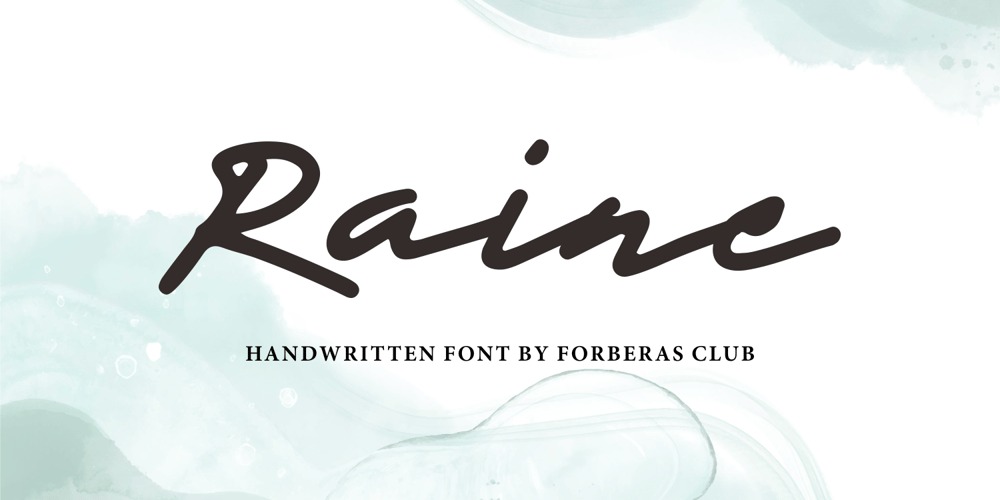
Rainee
Rainee font
Rainee Font Family was designed by ANGGI HERMAWAN and published by Forberas Club. Rainee contains 1 styles and family package options. Rain is modern handwritten.Recommended to use this font for signature, wedding party, invitation, memorable moment, love story and many more with special moment.